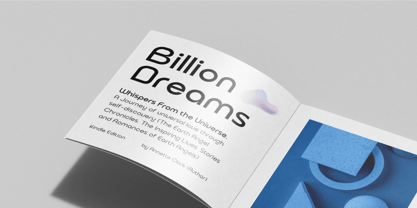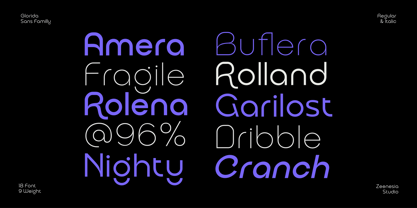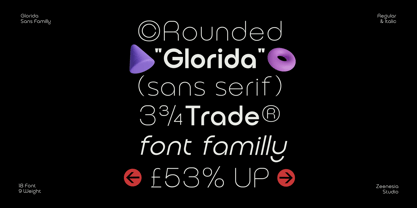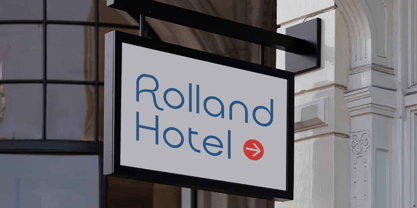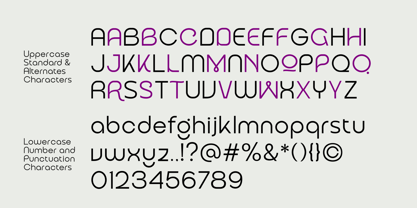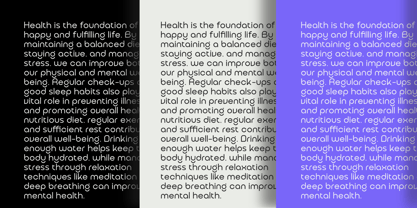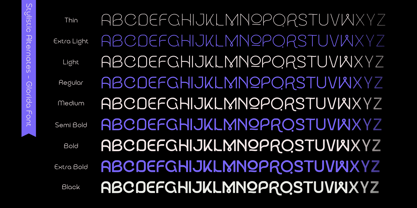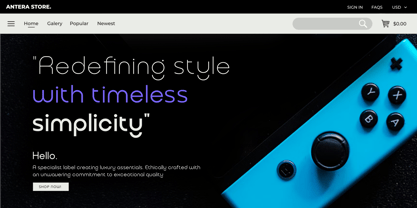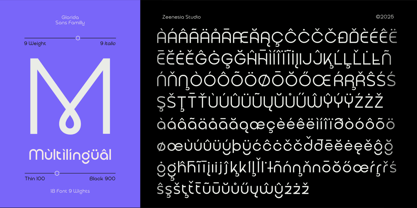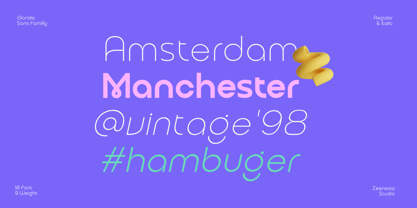
Glorida
The Glorida Font Family was designed by Doni Purwoko and published by Zeenesia Studio. Glorida contains 18 styles and family package options. More about this family
Glorida – Elegant Smooth Rounded Typeface
Introducing Glorida, a refined and versatile typeface designed to bring elegance and warmth to your projects. With 18 styles, including 9 weights (from Thin to Black) and their matching 9 italics, Glorida offers a comprehensive typographic solution for various creative needs.
Glorida stands out with its smooth curves, soft rounded edges, and balanced proportions, making it a perfect choice for branding, editorial design, web interfaces, and more. Its gentle yet confident appearance ensures readability while adding a touch of sophistication.
Whether you’re aiming for a modern, friendly, or timeless look, Glorida adapts beautifully across different styles and applications. From delicate Thin weights for an airy and elegant feel to the bold and expressive Black for impactful statements—this typeface provides endless possibilities.
Features:
• 18 Styles (9 Weights + 9 Italics)
• Smooth rounded edges for a soft yet strong appearance
• Well-balanced letterforms with excellent readability
Perfect for branding, editorial, UI/UX, and more
Experience the graceful versatility of Glorida—where elegance meets modernity in every stroke.